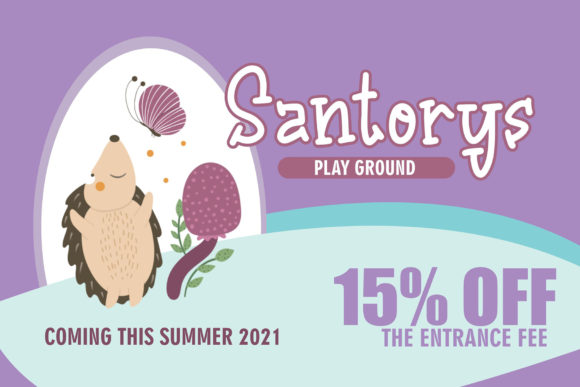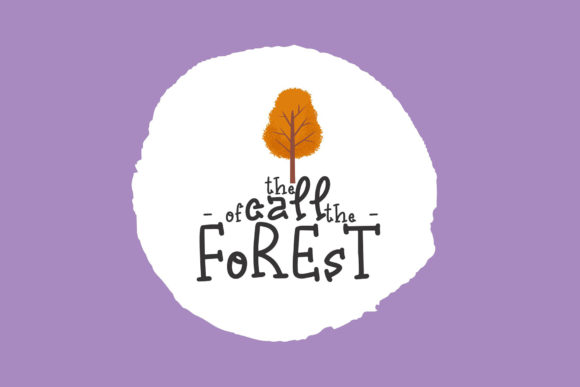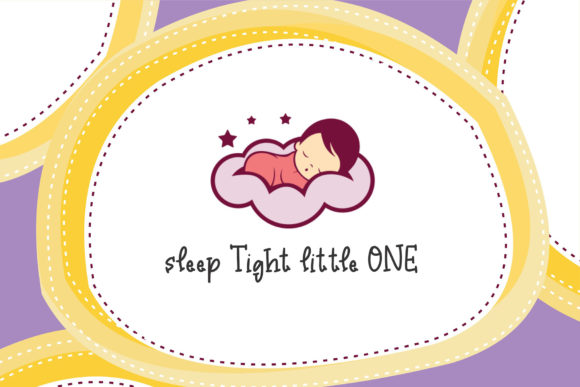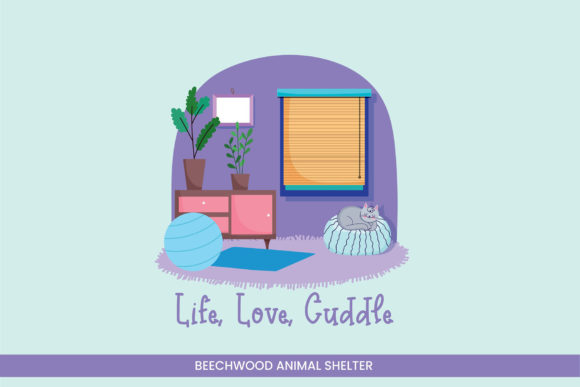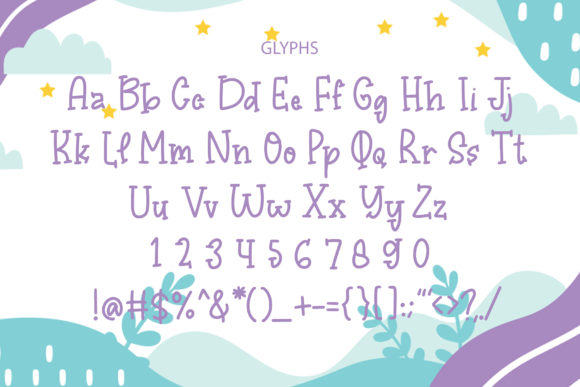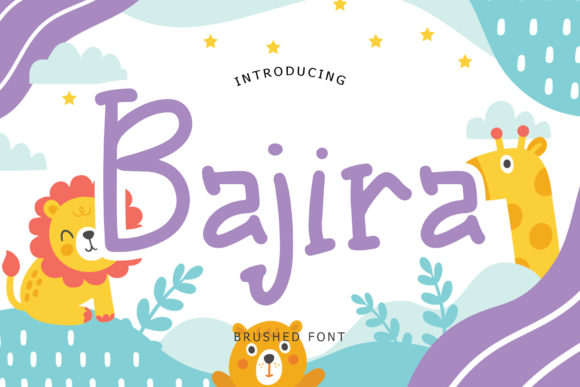
Bajira Font: The Ultimate Choice for Kid-Themed Designs
Are you a designer or crafter looking for a font that can add a touch of excitement and quirkiness to your kid-themed designs? Look no further than Bajira Font! This display font is perfect for making any project stand out, and its versatility makes it suitable for a wide range of applications.
What is Bajira Font?
Bajira Font is an exciting and quirky display font designed specifically for kid-themed designs. Its unique and playful style makes it perfect for branding projects, logos, t-shirt designs, book cover designs, social media posts, advertisements, product packaging, product designs, labels, watermarks, invitations, stationery, and any other projects that require a fun and youthful touch.
Key Features of Bajira Font
- Unique and Playful Style: Bajira Font has a distinct and quirky style that sets it apart from other fonts. Its playful design makes it perfect for kid-themed projects.
- Versatility: Bajira Font is suitable for a wide range of applications, from branding and logos to social media posts and product packaging.
- High-Quality Design: Bajira Font is designed with high-quality graphics, ensuring that it looks great in any project.
Why Choose Bajira Font?
There are many reasons why Bajira Font is the ultimate choice for kid-themed designs. Here are a few:
- Stand Out from the Crowd: Bajira Font is unique and attention-grabbing, making it perfect for designers and crafters who want to create projects that stand out from the crowd.
- Perfect for Kid-Themed Designs: Bajira Font is designed specifically for kid-themed designs, making it perfect for projects such as children’s book covers, t-shirt designs, and product packaging.
Tips and Tricks for Using Bajira Font
Here are some tips and tricks for using Bajira Font:
- Experiment with Different Sizes and Colors: Experiment with different sizes and colors to find the perfect combination for your project.
- Use it for Headings and Titles: Use Bajira Font for headings and titles to add a touch of excitement and quirkiness to your project.
- Pair it with Other Fonts: Pair Bajira Font with other fonts to create a unique and interesting design.
Bajira Font is an exciting and quirky display font that is perfect for kid-themed designs. Its unique and playful style makes it suitable for a wide range of applications, from branding and logos to social media posts and product packaging. With its ease of use, high-quality design, and cost-effectiveness, Bajira Font is the ultimate choice for designers and crafters who want to create high-quality kid-themed designs.